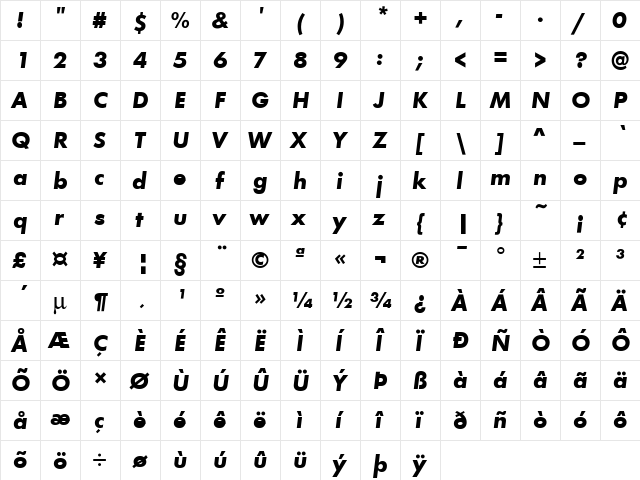
Futura T Bold Oblique Font Preview
Design Context for Futura T Typeface
Futura T channels digital-age aesthetics through its sharp, structured letterforms — ideal for brands that want to signal innovation. Its italic angle brings a sense of urgency and motion to the letterforms. The heavy weight commands attention and anchors typographic hierarchies.
Pro Tip: Use Futura T in combination with a neutral sans for body text. Let it define the brand voice in headlines while keeping reading comfortable elsewhere.